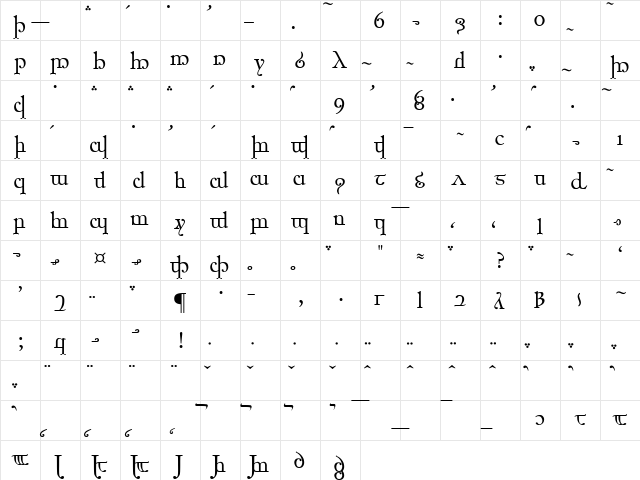
Elfic Caslin Regular
| Foundry | Font by Rudolf Koch 1910 digitized by Peter Wiegel |
| Designer | Peter Wiegel |
Design Context for Elfic Caslin Typeface
Elfic Caslin takes a measured approach to typography — its balanced proportions and neutral character make it a reliable workhorse for both digital and print work.